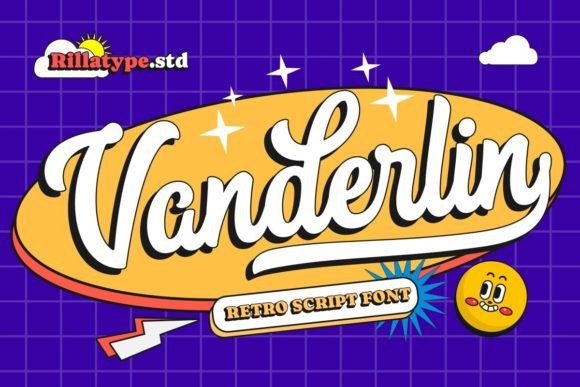
Vanderlin Font: A Timeless Retro Script Font for Your Design Needs
In the world of typography, fonts play a crucial role in conveying the tone and aesthetic of a design. With the numerous font options available, it can be challenging to find the perfect one that adds a touch of elegance and sophistication to your creations. However, if you’re looking for a font that embodies vintage charm and timeless appeal, look no further than the Vanderlin font. In this article, we’ll introduce you to the captivating world of Vanderlin, a retro script font that will take your designs on a nostalgic journey.
What is Vanderlin Font?
Vanderlin is a beautifully crafted retro script font that exudes vintage elegance and charm. With its swashes and alternate characters, this font is perfect for designers looking to add a touch of sophistication to their creations. Whether you’re working on a poster, logo, or any design project, Vanderlin brings a perfect blend of classic and contemporary styles, making it an excellent choice for a wide range of design applications.
The Features of Vanderlin Font
Vanderlin font boasts an impressive array of features that make it an attractive option for designers. Some of its notable features include:
- Charming Swashes: Vanderlin’s swashes add a touch of elegance and sophistication to your designs, making them perfect for titles, headings, and logos.
- Alternate Characters: The font comes with alternate characters, allowing you to experiment with different styles and create unique designs.
- Retro Charm: Vanderlin’s retro style gives your designs a nostalgic feel, making them stand out in a sea of modern and sleek fonts.
- Versatility: This font is incredibly versatile and can be used for a wide range of design projects, from posters and logos to packaging and branding.
The Benefits of Using Vanderlin Font
Using Vanderlin font in your designs comes with numerous benefits, including:
- Timeless Appeal: Vanderlin’s classic style ensures that your designs remain timeless and relevant, even as design trends evolve.
- Unique Style: The font’s distinctive style sets your designs apart from others, giving you a competitive edge in the world of design.
- Elegance and Sophistication: Vanderlin adds a touch of elegance and sophistication to your designs, making them perfect for high-end brands and luxury products.
- Easy to Read: Despite its ornate style, Vanderlin is surprisingly easy to read, making it perfect for body text and captions.
How to Use Vanderlin Font in Your Designs
Using Vanderlin font in your designs is incredibly easy. Here are some tips to get you started:
- Pair it with a Sans-Serif Font: Pair Vanderlin with a sans-serif font for a striking contrast that adds visual interest to your designs.
- Experiment with Swashes: Don’t be afraid to experiment with Vanderlin’s swashes and alternate characters to create unique and eye-catching designs.
- Use it for Titles and Headings: Vanderlin is perfect for titles and headings, where its elegant style can shine.
- Add a Pop of Color: Use Vanderlin to add a pop of color to your designs, making them more visually appealing and engaging.
The Design Applications of Vanderlin Font
Vanderlin font is incredibly versatile and can be used for a wide range of design applications, including:
- Posters and Flyers: Vanderlin is perfect for creating eye-catching posters and flyers that grab attention.
- Logos and Branding: The font’s elegant style makes it an excellent choice for logos and branding, where sophistication and elegance are paramount.
- Packaging and Product Design: Vanderlin can add a touch of luxury and sophistication to packaging and product design, making products stand out on store shelves.
- Web Design: The font’s legibility and elegance make it an excellent choice for web design, where readability and aesthetics are crucial.
In conclusion, Vanderlin font is a captivating retro script font that adds a touch of vintage elegance to your designs. With its charming swashes and alternate characters, Vanderlin brings a perfect blend of classic and contemporary styles, making it an excellent choice for a wide range of design applications. Whether you’re working on a poster, logo, or any design project, Vanderlin is sure to elevate your creations and let your designs resonate with the beauty of the past.
FAQs About Vanderlin Font
- What is Vanderlin font? Vanderlin is a retro script font that exudes vintage elegance and charm.
- What are the features of Vanderlin font? Vanderlin boasts charming swashes, alternate characters, retro charm, and versatility.
- What are the benefits of using Vanderlin font? The benefits of using Vanderlin font include timeless appeal, unique style, elegance and sophistication, and ease of readability.
- How do I use Vanderlin font in my designs? You can use Vanderlin font in your designs by pairing it with a sans-serif font, experimenting with swashes, using it for titles and headings, and adding a pop of color.